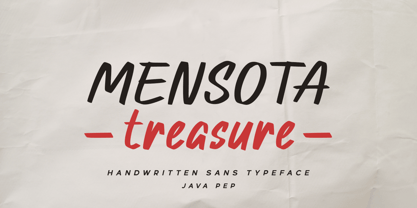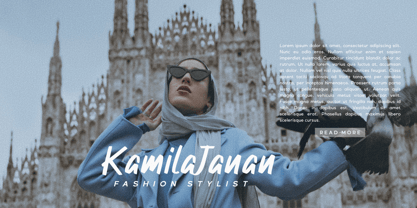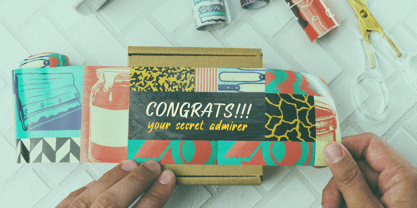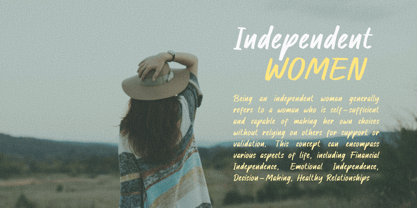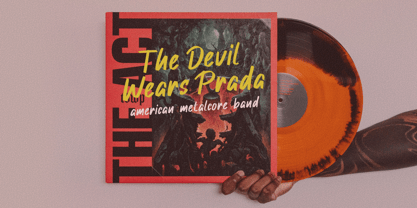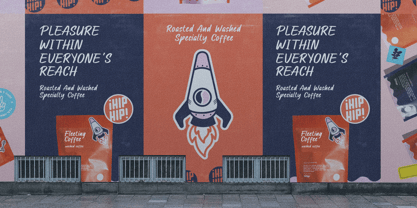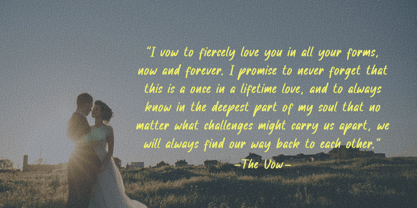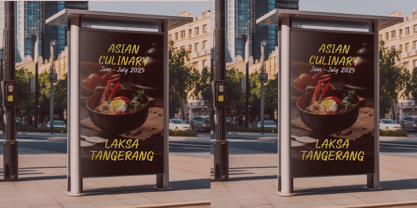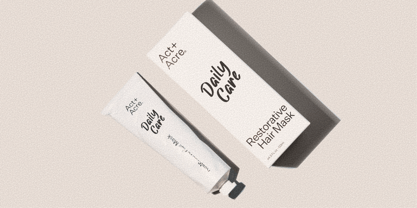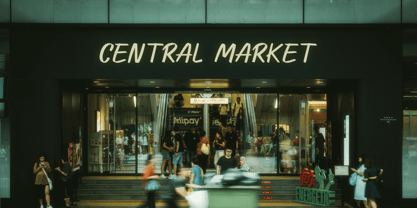
Mensota Treasure
by Java Pep
The Mensota Treasure Font Family was designed by Java Pep and published by Java Pep. Mensota Treasure contains 1 styles. More about this family
Mensota treasure font is a handwritten sans inspired by handwritten markers. Each glyph or character is made in my handwriting style and is made with multilingual support covering 30+ languages. Mensota treasure font is perfect for logos, titles, social media, quotes, fashion, advertising, publishing, and more.